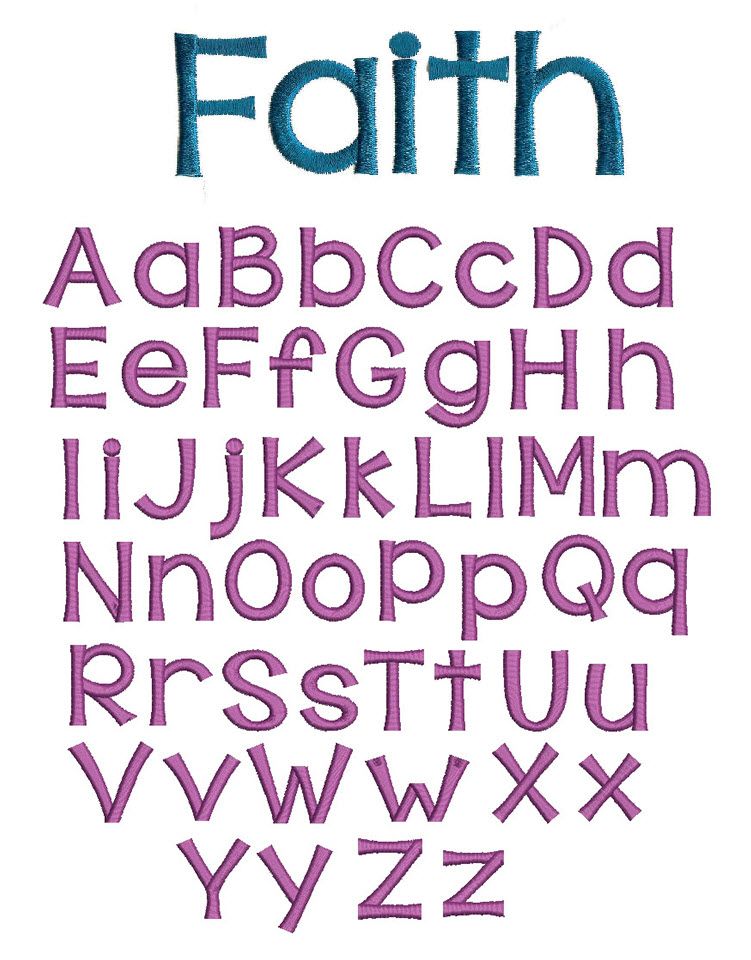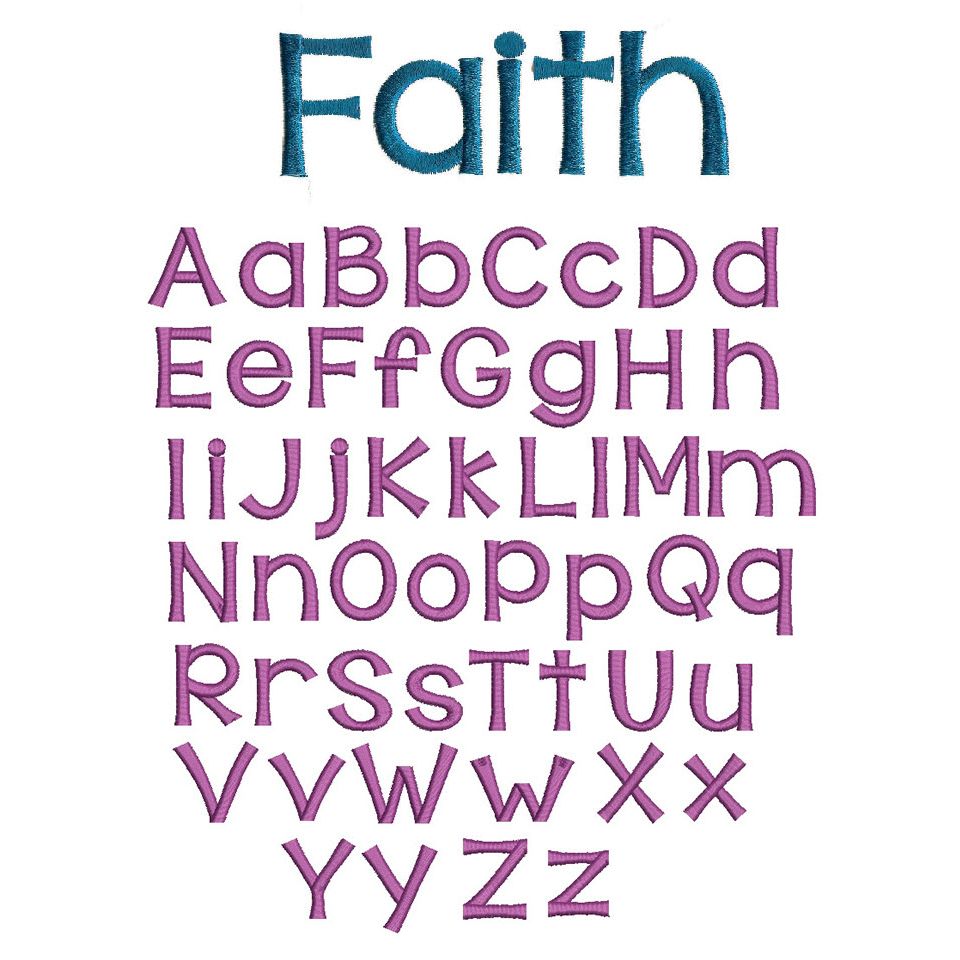
Behind Hazel Eyes Satin Stitch Embroidery Font
Such a cool font! Great for boys and girls alike! All of our font alphabets are 100% manually digitized to bring you maximum stitch quality.